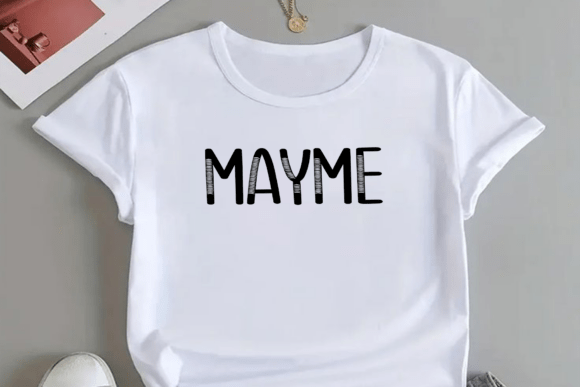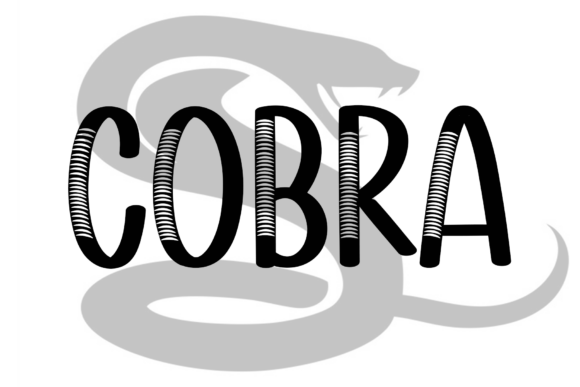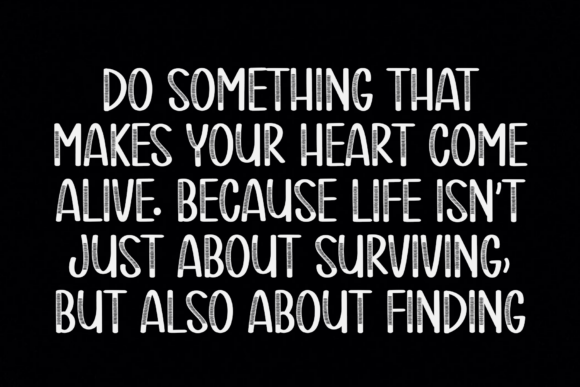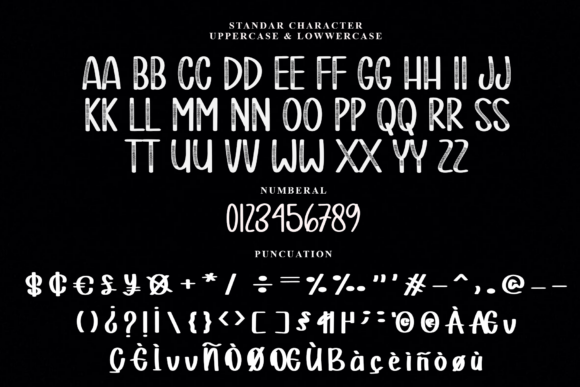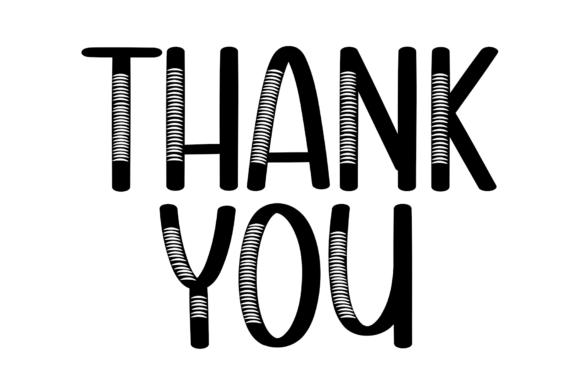
Where Creativity Meets Personal Touch
Have you ever sat down with a blank sheet of paper, pen in hand, and let your imagination flow onto the page? The feeling of putting your thoughts and emotions into physical form is truly magical. It’s this same sense of intimacy and connection that the Coloring Font aims to capture in the digital world.
Designed to bring a human touch to your digital canvas, the Coloring Font is a versatile and effortless elegant typeface. Perfect for designers seeking to add a personal touch to their projects, this Simple Handwritten font is ideal for wedding invitations, greeting cards, lifestyle branding, and more. Its clean yet whimsical aesthetic makes it a valuable asset for any creative looking to add an authentic voice to their work.
Key Features of Coloring Font
- Unique Color-Changing Effect: Coloring Font is a font that changes color based on the background it’s applied to, providing a unique visual effect for designers and artists.
- Resolution-Independent: Coloring Font is designed to be resolution-independent, ensuring that it looks great at any resolution, from low-resolution displays to high-resolution prints.
- Size: Available in a single font size, with a character set that includes uppercase and lowercase letters, numbers, and punctuation marks.
- Color Palette: Features a wide range of colors that can be applied to the font, allowing designers to customize the look and feel of their designs.
- Easy to Use: Coloring Font is easy to use and requires no special software or plugins, making it accessible to designers and artists of all skill levels.
Designer Review: Coloring Font
Overall, I found Coloring Font to be an interesting and unique font that has its strengths and weaknesses. Here’s my honest review:
- Colorful aesthetic: The font’s vibrant color palette makes it perfect for designs that require a playful and whimsical feel.
- Customizable: The font’s color options allow designers to personalize it to suit their specific project needs.
- Scalability: The font scales well across various sizes and resolutions, making it suitable for a range of design applications.
- Readability issues: In certain situations, the font’s colorful design can make it difficult to read, especially for text-heavy content.
- Limited compatibility: The font may not be compatible with all design software or systems, which can lead to formatting issues.
Overall, I’d say Coloring Font is a great addition to any designer’s toolkit, but it’s essential to use it judiciously and consider the context in which it’s being used. With its unique aesthetic and customization options, it’s perfect for designs that require a playful and attention-grabbing feel.
2. Go to the “Layer” menu and select “Layer Style” > “Color Overlay” > “Coloring Font”.
3. Adjust the settings to customize the color effect.
Using Coloring Font in PowerPoint/Word
To use Coloring Font in PowerPoint or Word, follow these steps:
1. Open your PowerPoint or Word document and select the text element you want to color.
2. Go to the “Home” tab and select the “Font” group > “Color” > “Coloring Font” option.
3. Choose the color palette and adjust the settings to achieve the desired effect.
Tips for Getting the Most Out of Coloring Font
Experiment with different color palettes and settings to achieve unique effects.
Use Coloring Font to create visually appealing text overlays and graphics.
Combine Coloring Font with other design elements to create engaging and dynamic designs.
Coloring Font is ideal for:
Creating eye-catching social media graphics.
Designing engaging presentations and reports.
Adding a personal touch to blog posts and articles.
Alternatives to Coloring Font for Designers
1. Font Awesome
Font Awesome is a popular font icon library that provides a wide range of icons, graphics, and typography styles. It is ideal for use in web design, mobile apps, and desktop applications where a consistent and visually appealing icon set is required. Unlike Coloring Font, Font Awesome is more focused on icons and graphics, whereas Coloring Font is a general-purpose font with various styles and colors.
Q: Can I customize the colors and effects of Coloring Font?
Yes, Coloring Font offers a range of customization options, including the ability to adjust the color palette, gradient direction, and opacity. You can also use advanced features like color scripting and font mapping to create complex, dynamic effects. However, some of these features may require advanced technical knowledge and may not be suitable for all users.